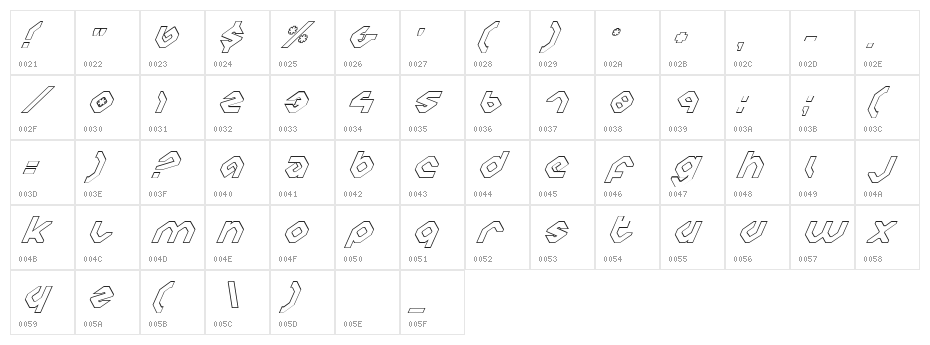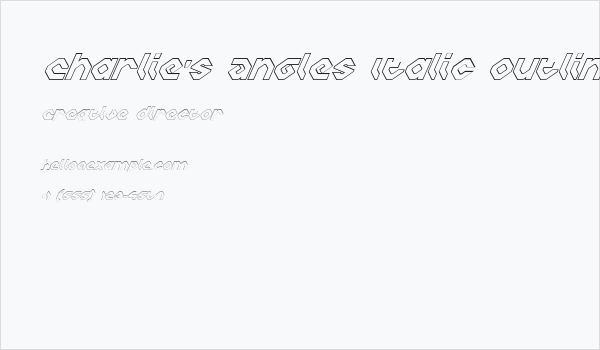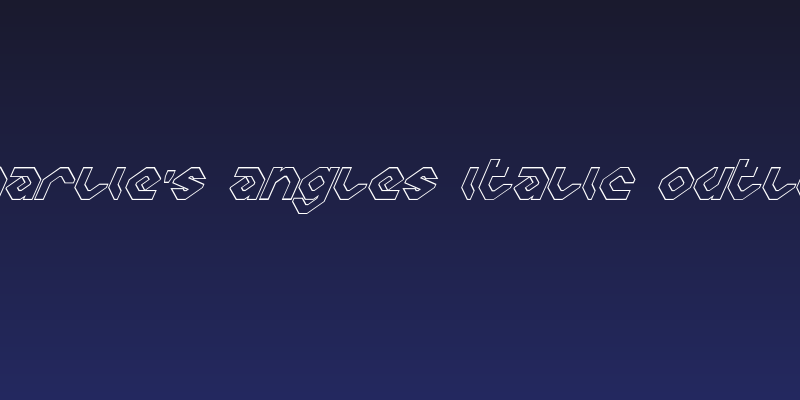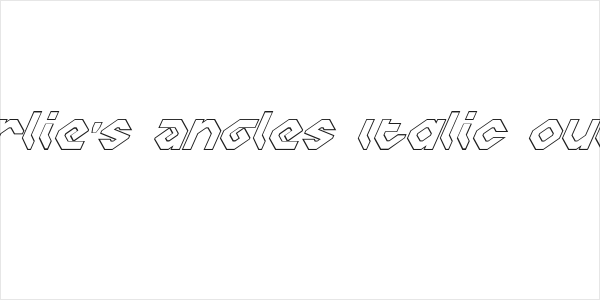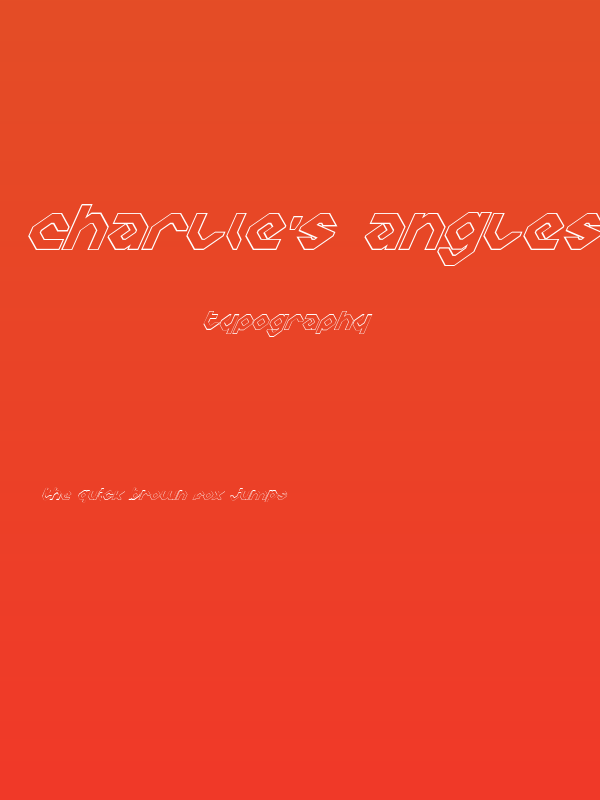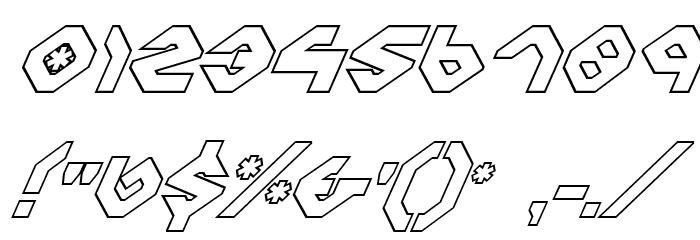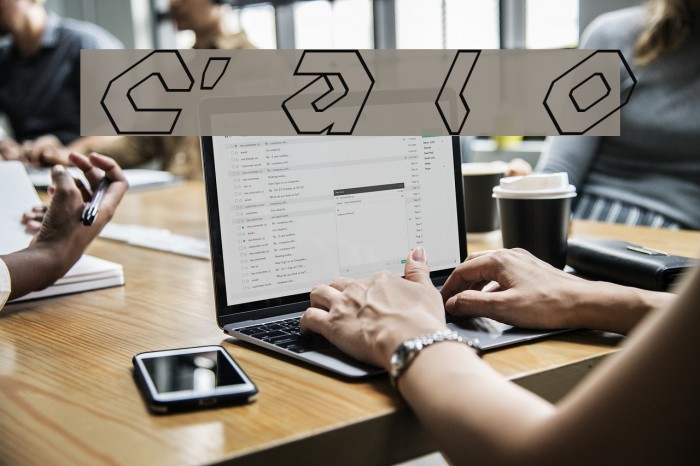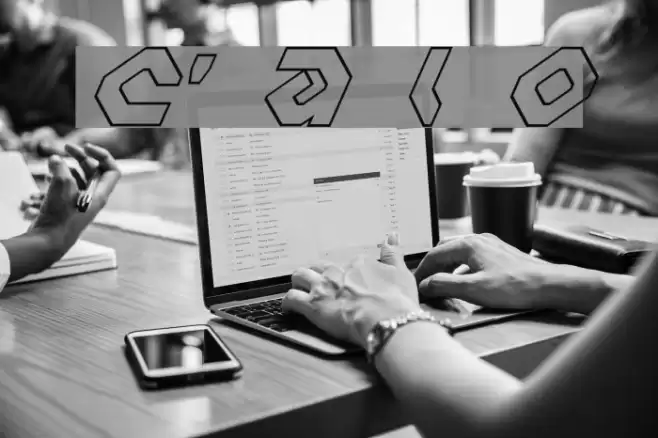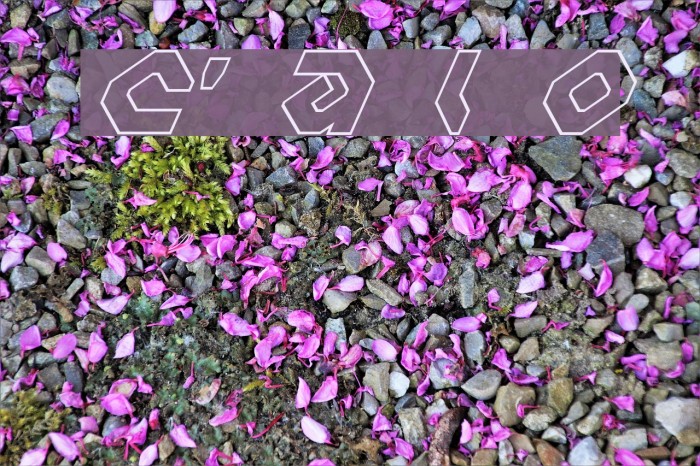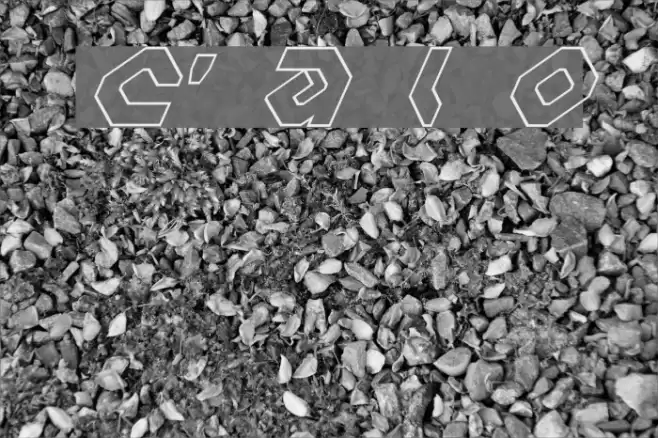
Charlie's Angles Italic Outline Font
Charlie's Angles Italic Outline Description
This font features a bold, angular design with an italic slant, giving it a dynamic and futuristic appearance. The outline style adds a unique dimension, making each character stand out with a distinct geometric flair. The uppercase and lowercase letters maintain a consistent angular theme, while the numbers and special characters complement the overall aesthetic. The font's sharp edges and clean lines convey a sense of modernity and innovation, making it suitable for projects that require a bold statement.
| Proposed Projects | Ideal for sci-fi themed designs, video game titles, tech branding, and modern posters. |